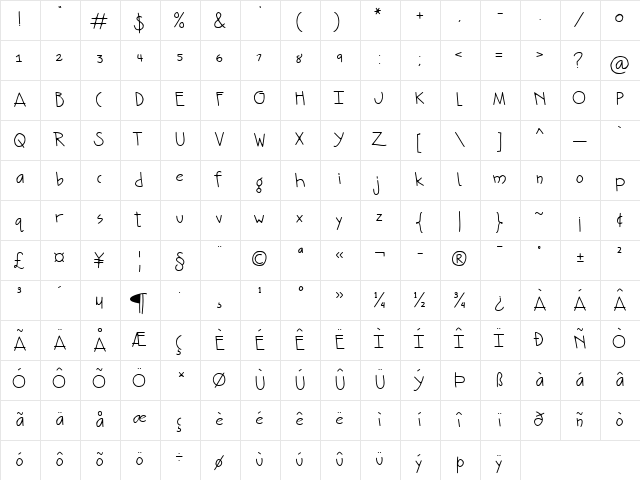
Buble Fish Regular
Design Context for Buble Fish Typeface
Buble Fish takes a measured approach to typography — its balanced proportions and neutral character make it a reliable workhorse for both digital and print work.